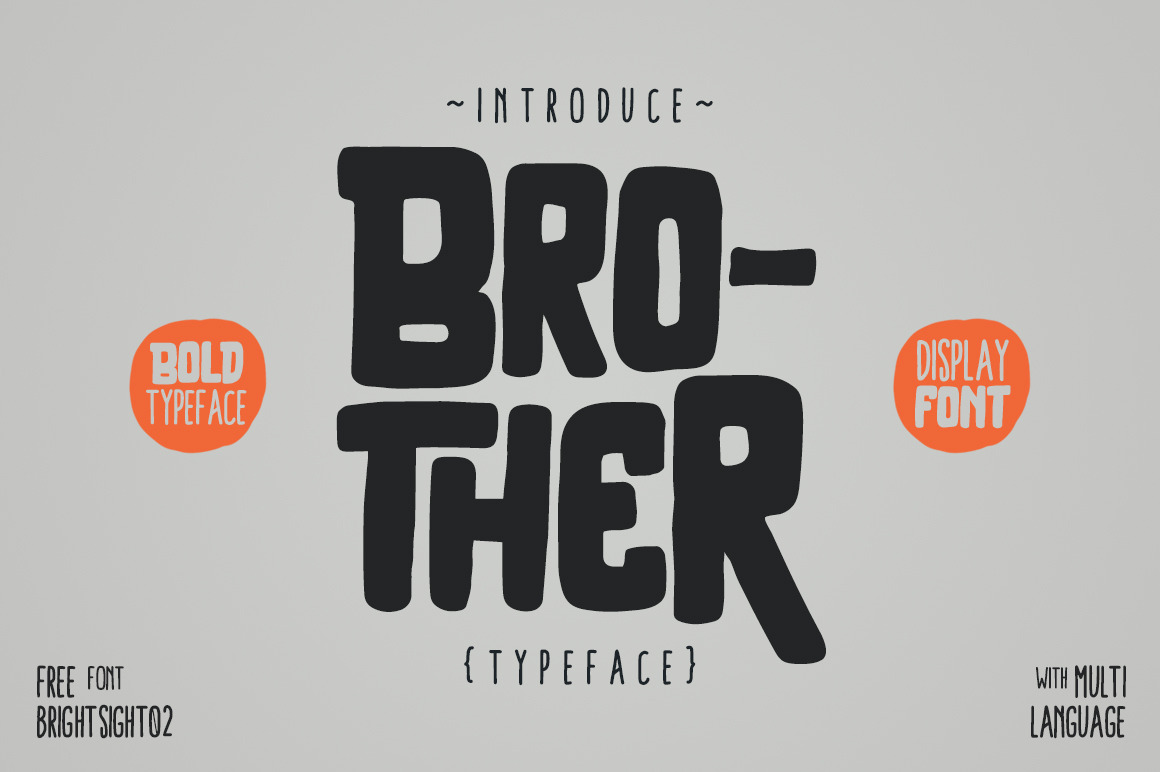
Brother Typeface
BROTHER TYPEFACE can make it easier to convey the message in your design. Use for awesome display, labeling, clothing, movie sceen, poster, movie title, gigs, album covers, logos, and much more.